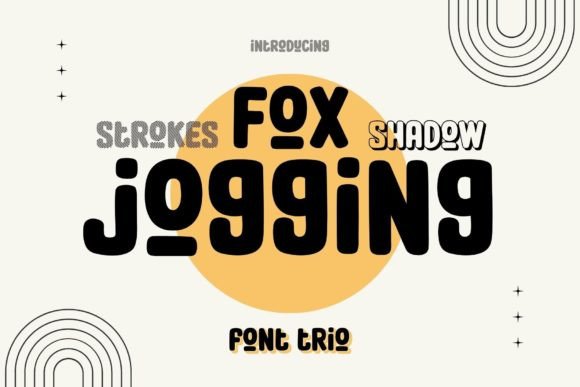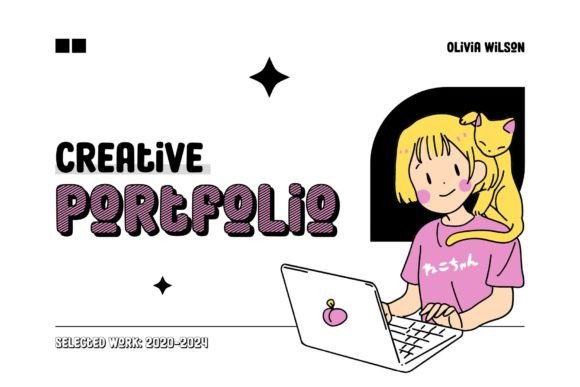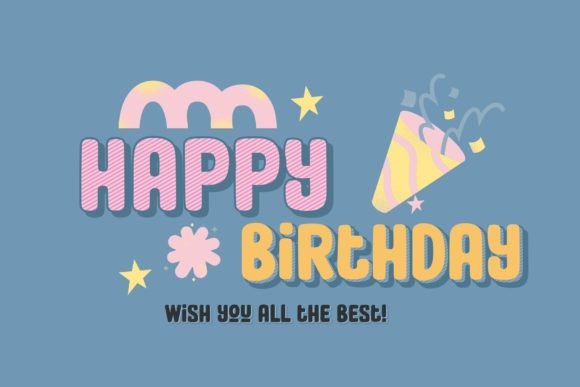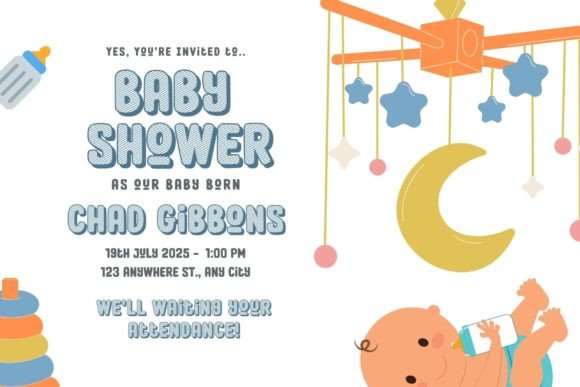
Fox Jogging Font: A Playful Display Font for Cricut & Cute Designs
About the Fox Jogging Font
Get ready to be inspired by Fox Jogging Font, a fresh and dynamic typeface for modern creators. Fox Jogging is a 3 style font that cool cute and playful display font that adds a captivating and energetic touch to your designs. Perfect for use in publications, menus, logos, business cards, or even printed on t-shirts, these fonts exude uniqueness. Its main feature is its vibrant and expressive design, allowing you to create attention-grabbing headlines, t-shirt typography, banners, product labels, and more
Fox Jogging’s playful energy makes it ideal for headlines, logos, and short, impactful text in branding materials or packaging for youthful, energetic brands. It excels in applications requiring high visual impact, such as posters or social media graphics. However, its unique character isn’t suited for body text or UI elements where readability over extended lengths is crucial. Avoid using it for lengthy paragraphs or complex layouts.
This font pairs well with clean sans-serif fonts like Open Sans or Lato for a balanced contrast between playful and professional. For a more playful combination, consider pairing it with a rounded geometric sans-serif. A classic serif like Garamond could offer a sophisticated counterpoint, creating visual interest through contrasting styles.
Its overall personality is best described as fun, dynamic, and approachable, making it a strong choice for projects aimed at a younger demographic or those emphasizing a lighthearted and friendly brand identity.
Fox Jogging Font Usage Examples
Fox Jogging Font Example